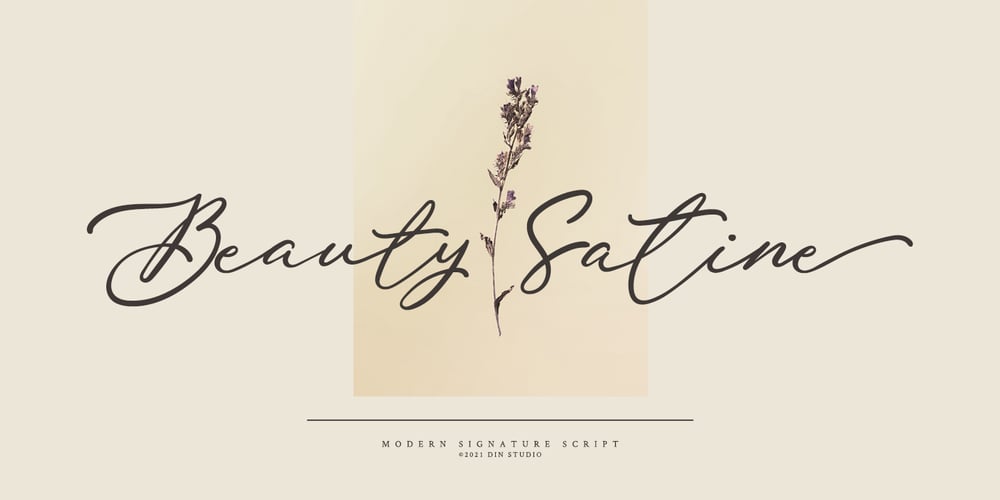
Beauty Satine Font Family was designed by Donis Miftahudin and published by Din Studio. Beauty Satine contains 1 styles and family package options. Product DescriptionYour branding missing something that makes people incredibly amaze? Looking for an elegant font to attract your audiences or customers? What if we told you, you only need to change one element to engage and convert your clients? Beauty Satine-A Signature Font Giving you a simple, yet the gorgeous solution to your branding. This font is not only just a signature font. It encapsulates the essence of elegance and modernity. With its clean script-type design and curved indentations, this font will take your projects to the next level! Use it for headings, logos, business cards, printed quotes, invitations of all sorts, cards, packaging, and your website or social media branding. Beauty Satine includes Multilingual Options to make your branding globally acceptable. Features: Ligatures Stylistic Sets Alternates Multilingual Support PUA Encoded Numerals and Punctuation Thank you for downloading premium fonts from Din Studio